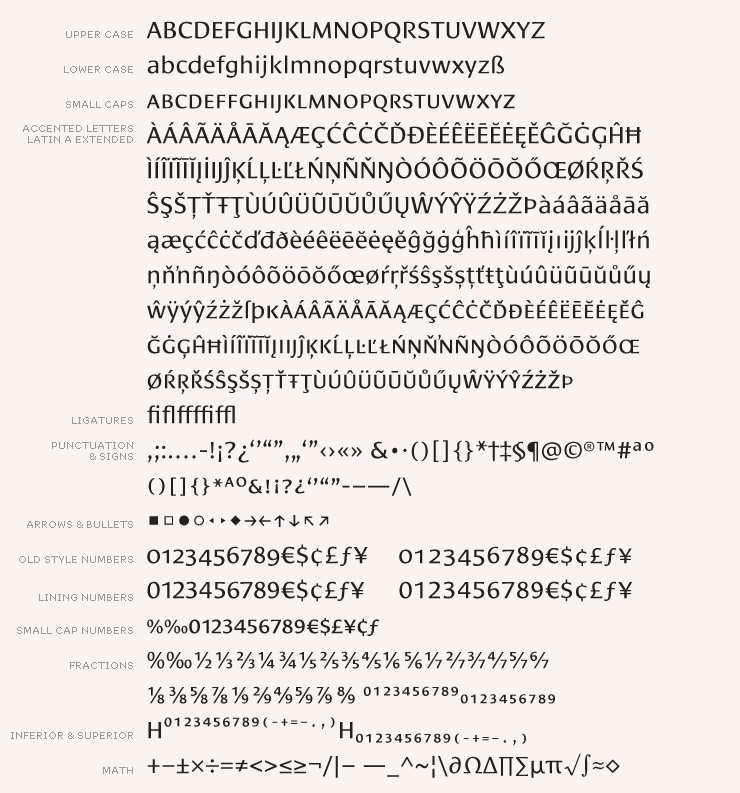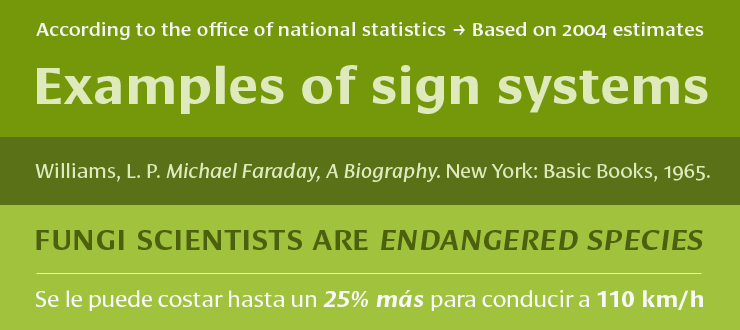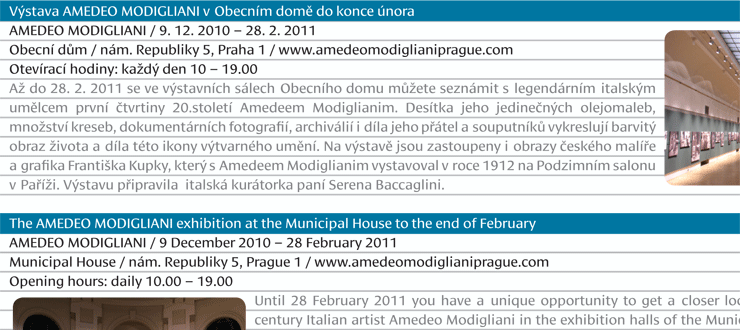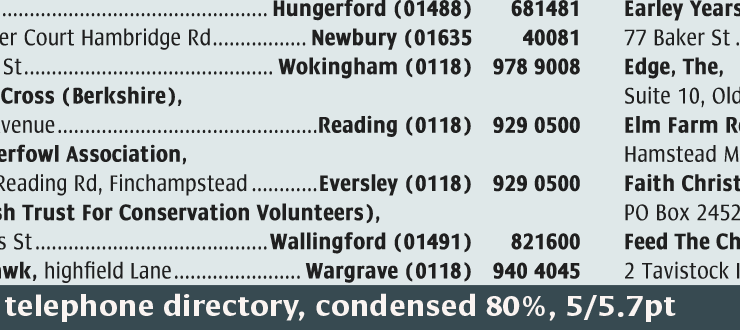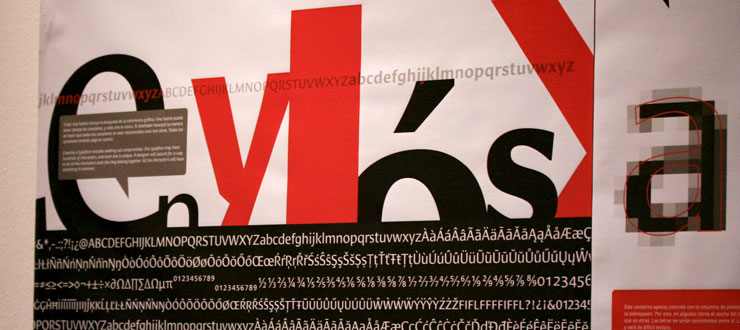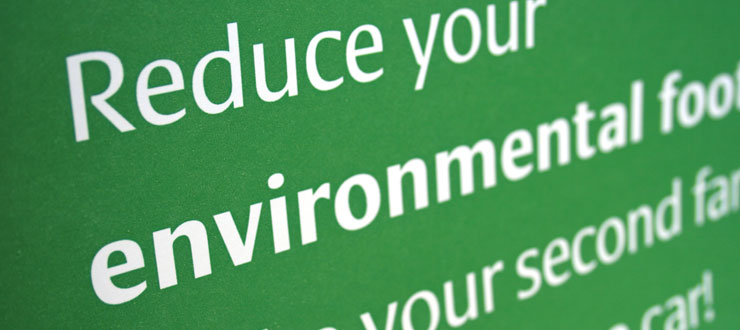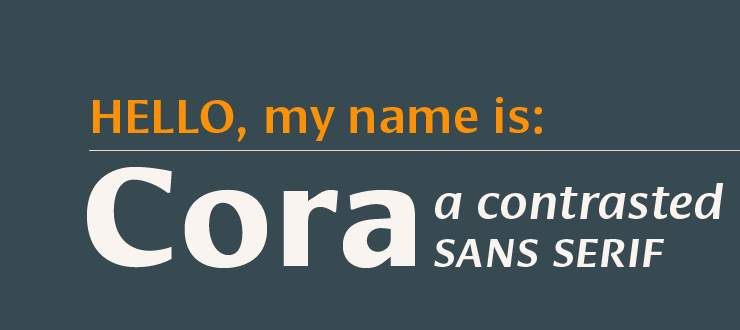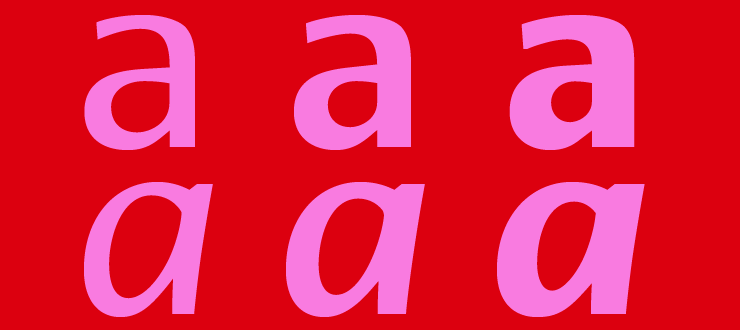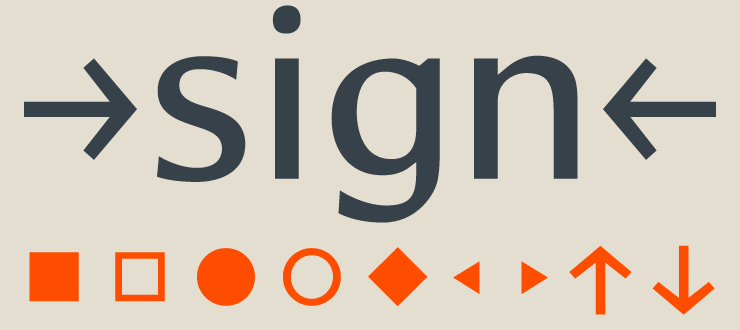
Cora is a sans serif with an experimental bent, offering a large x-height, some contrast of stroke weight, and capitals inspired by classical lettering. The uppercase exhibits classical proportions found in ancient Roman inscriptions, which provides opportunities for setting titles in all caps.
The large x-height gives it a voice with a little more volume so that those in the back of the room have no trouble hearing. Because the letters seem slightly large, Cora remains clear at smaller point sizes.
It is a typeface intended to perform well on screen without loosing its attraction in print and the nature of its shapes allows for condensation or expansion without becoming severely distorted. Possible applications include telephone directories, dictionaries or website texts.